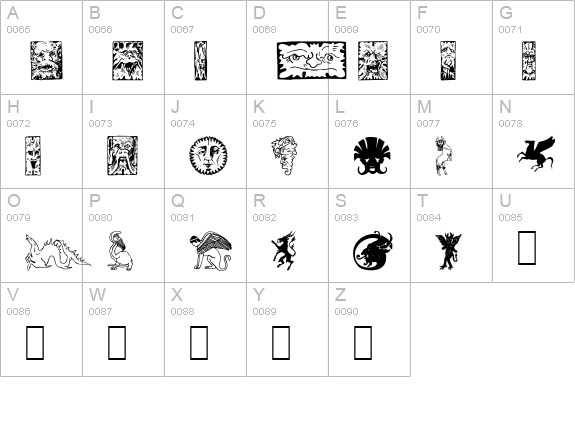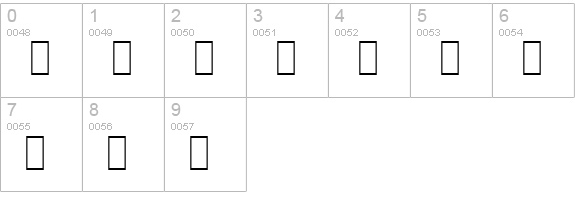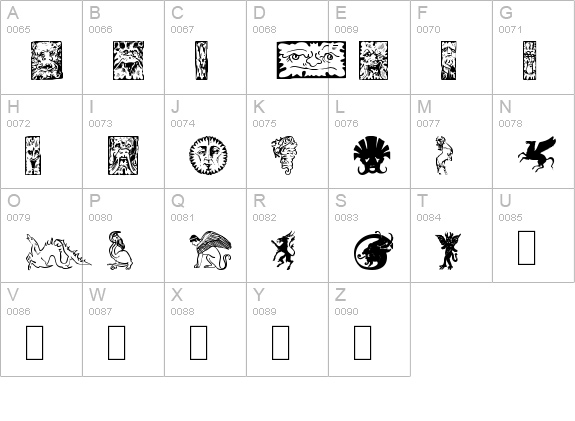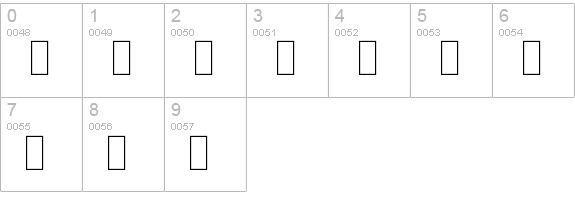
Fabeldyr 1 Font Details
Introducing Fabeldyr 1, a captivating and whimsical font that will transport you to a world of enchantment and magic. With its intricate and ornate design, this font brings a touch of fantasy and wonder to any project it graces. Fabeldyr 1 is the perfect choice for those seeking a font that is both unique and eye-catching. Its delicate curves and intricate details make it stand out from the crowd, while its playful and fantastical vibe adds a sense of fun and adventure. This font is not only visually stunning, but also highly versatile. It can be used in a wide range of design projects, from logos and branding materials to invitations and greeting cards. Its versatility allows you to create captivating and memorable designs that will leave a lasting impression. But what makes Fabeldyr 1 even more remarkable is the fact that it is completely free to download at FontsMarket.com. Yes, you read that right! This stunning font can be yours without any cost, making it an ideal choice for designers and creatives on a budget. So why wait? Download Fabeldyr 1 today and let your imagination run wild. Create stunning designs that captivate and inspire, all with the help of this remarkable font. Don't miss out on this opportunity to bring a touch of magic to your next project. Get your hands on Fabeldyr 1 and let your creativity soar!